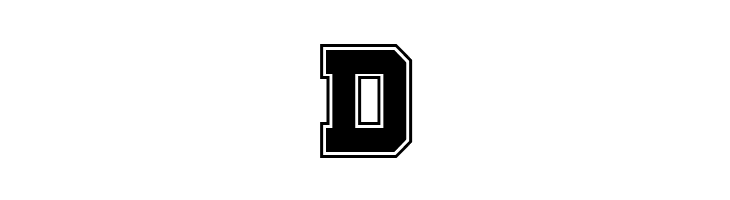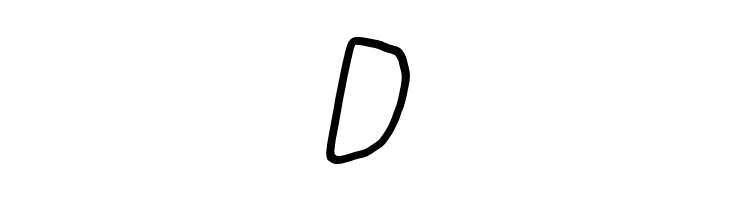
A bold, textured font with a hand-drawn, chalk-like appearance.
A bold, expressive script font with calligraphic flair and flowing strokes.
A whimsical, skyline-themed decorative font with hand-drawn cityscape characters.
A bold, grunge-style font with a distressed, brush-painted appearance.
A classic serif font with elegant curves and medium contrast, suitable for both display and text.
Bold, high-contrast ecology and sustainability icon set.
A bold, hand-drawn font with an expressive and artistic style.
A bold, hand-drawn font with a rough, textured appearance and dynamic style.
A bold, distressed font with a grunge aesthetic and vintage appeal.
A bold, distressed font with a grunge aesthetic and rough edges.
A bold, distressed font with a rugged, vintage appearance.
A bold, brush-style font with dynamic, textured strokes.
A bold, playful font with a double outline and rounded characters.
A bold, expressive hand-drawn font with dynamic strokes and artistic flair.
A modern, geometric font with bold, clean lines and excellent readability.
A bold, geometric sans-serif font with clean lines and strong presence.
A bold and italic font with strong, dynamic strokes and excellent readability.
A modern, italic typeface with clean lines and a dynamic appearance.
A modern sans-serif font with geometric shapes and uniform strokes.
A bold, dynamic font with thick strokes and a playful slant.
A bold, distressed font with a vintage, hand-printed look.
A bold, distressed font with a vintage, grunge aesthetic.
A bold, textured font with a hand-drawn, sketch-like appearance.
A character-based decorative font using illustrated portraits instead of standard letterforms.
A bold, modern font with elegant strokes and strong character presence.
A bold, modern font with clean lines and a sophisticated style.
A modern, elegant font with a clean and professional appearance.
A modern, elegant font with smooth curves and sharp edges, suitable for versatile applications.
A modern, semi-bold font with elegant, well-defined characters and slight stroke contrast.
A bold, jagged font with a horror-themed, distressed appearance.